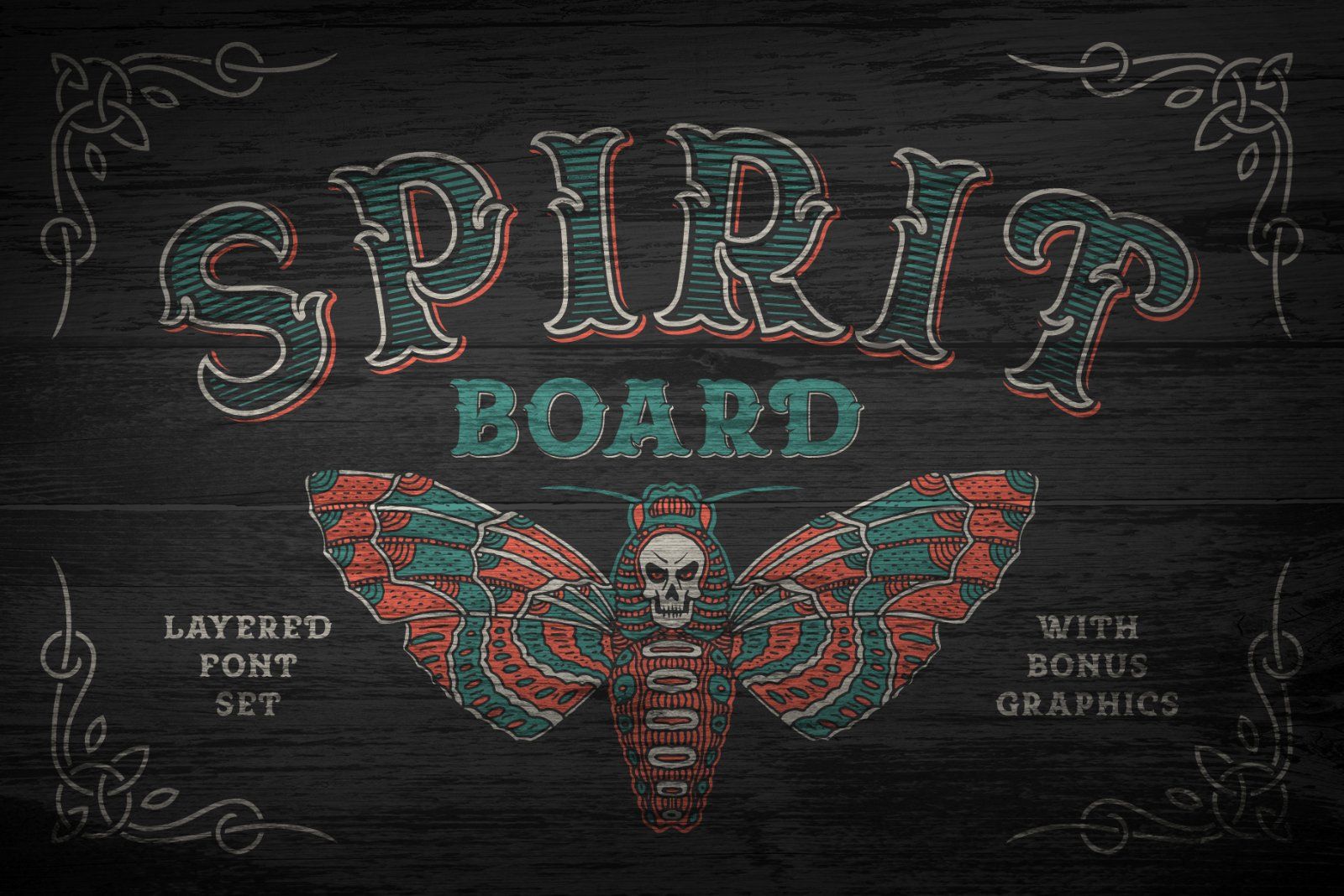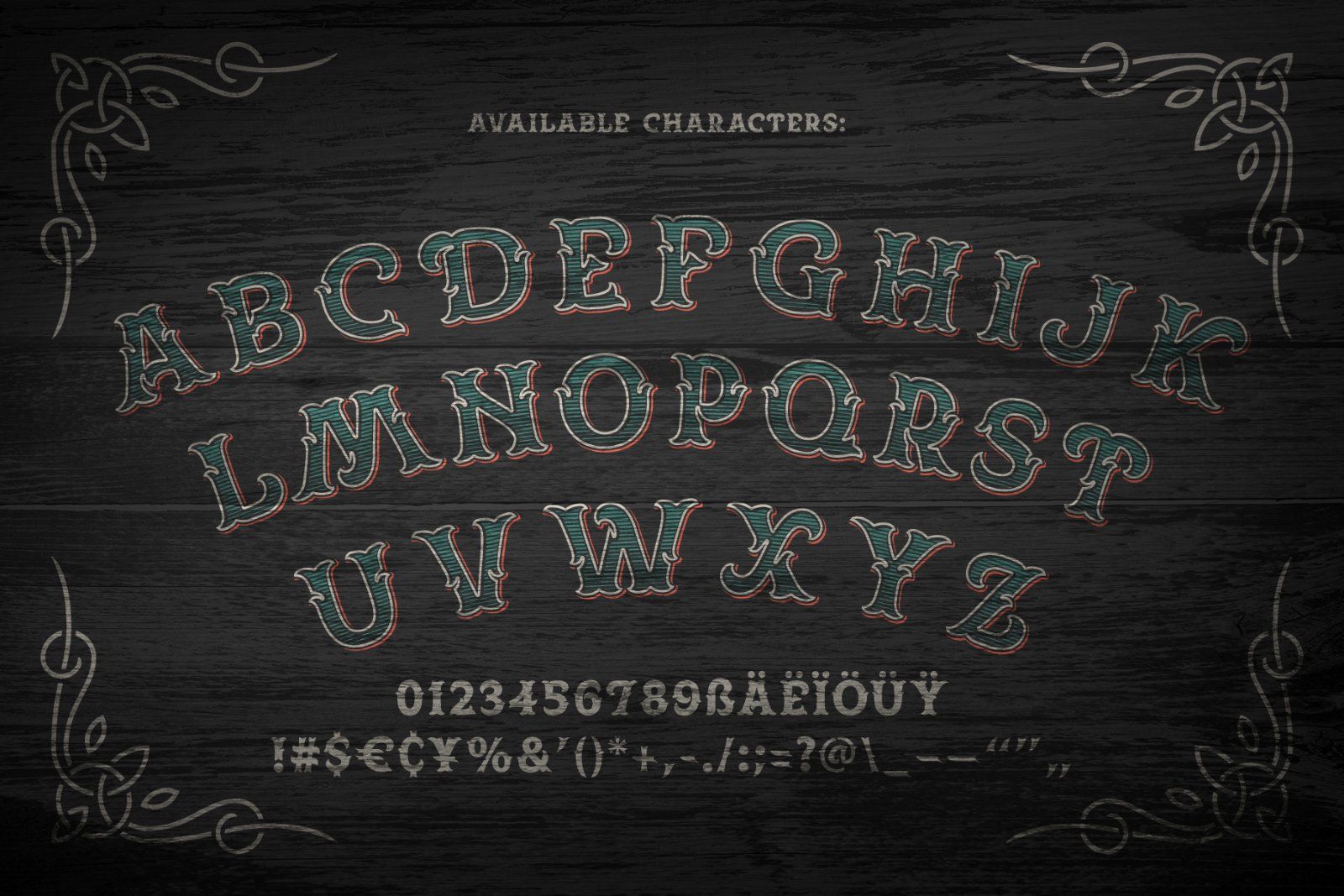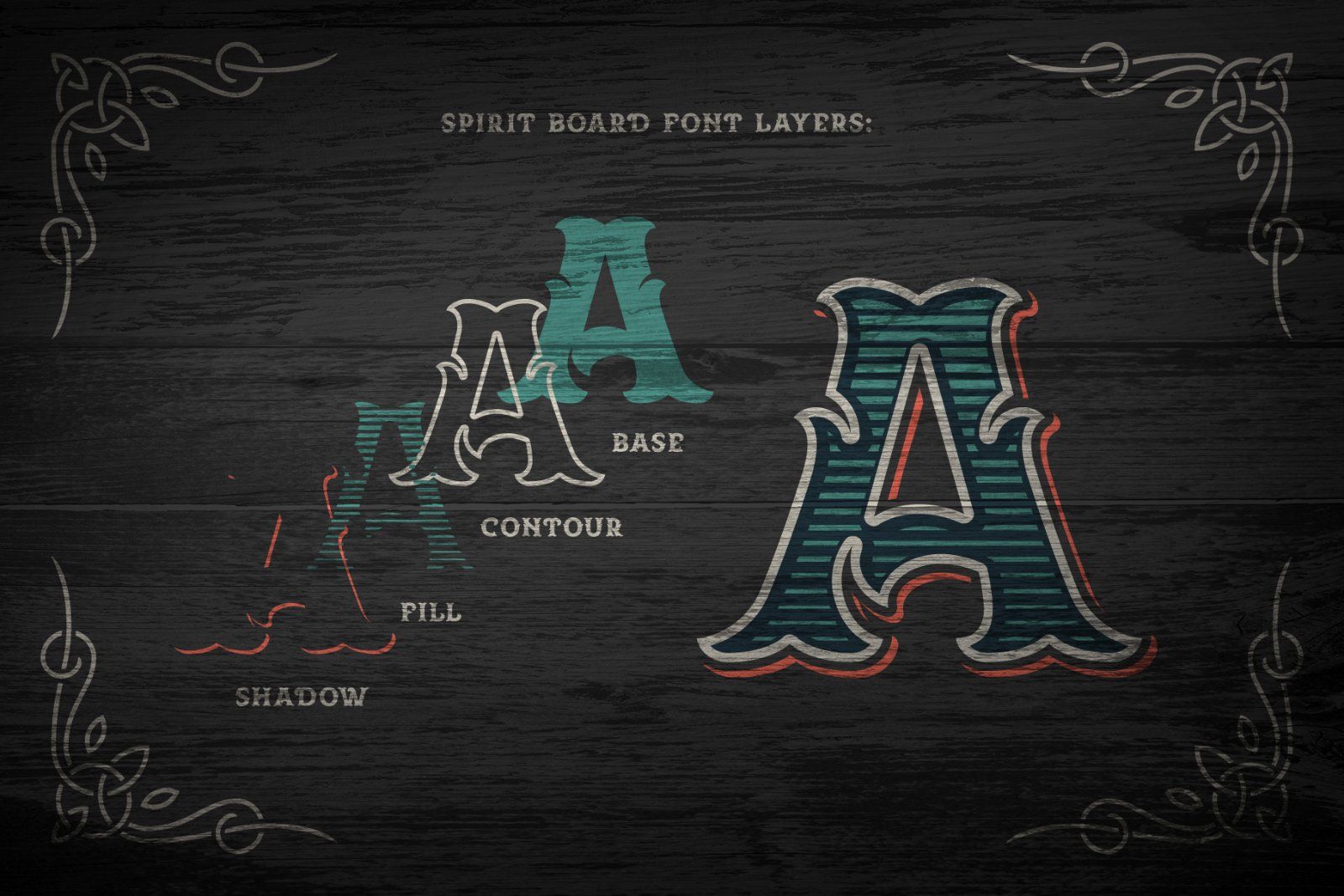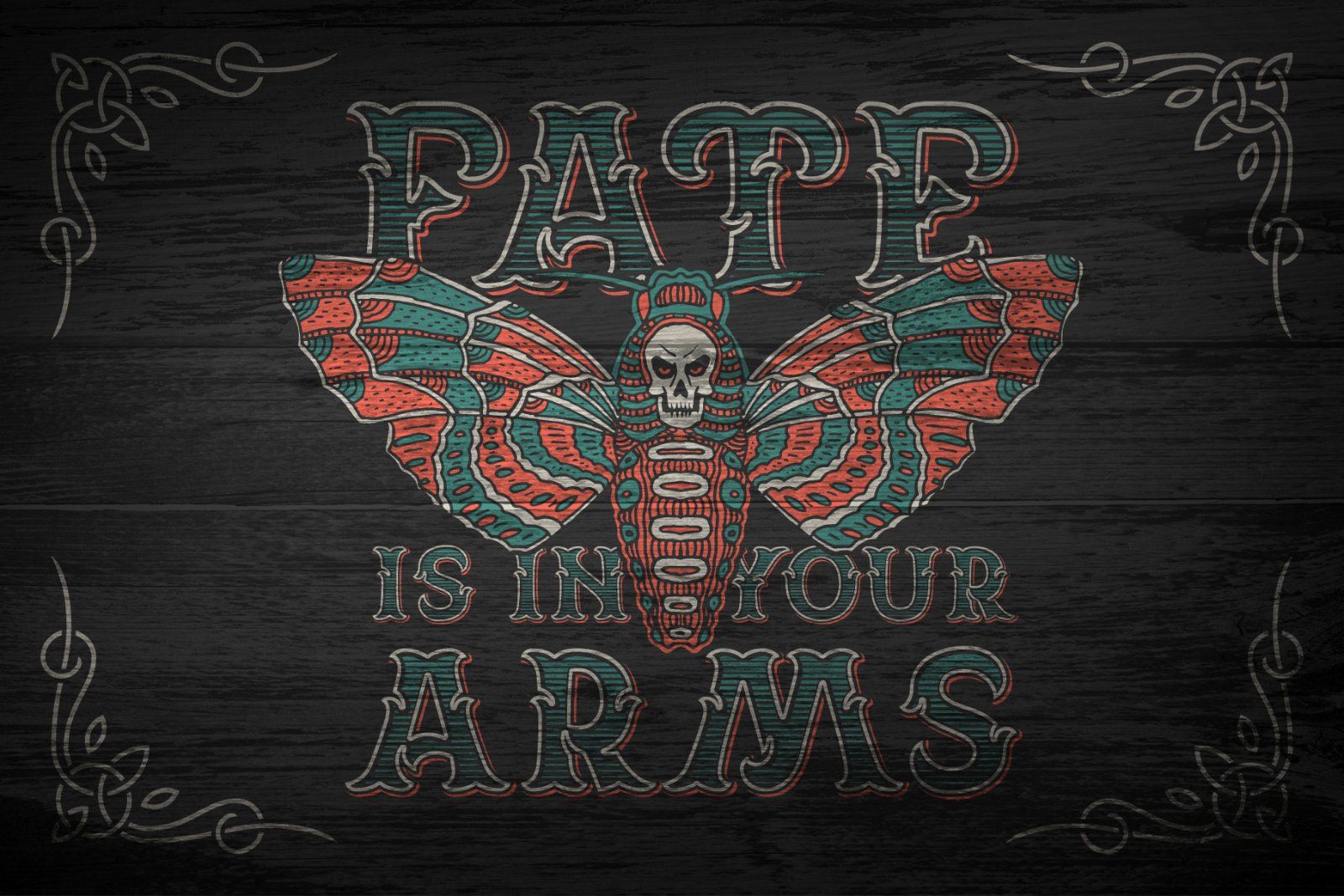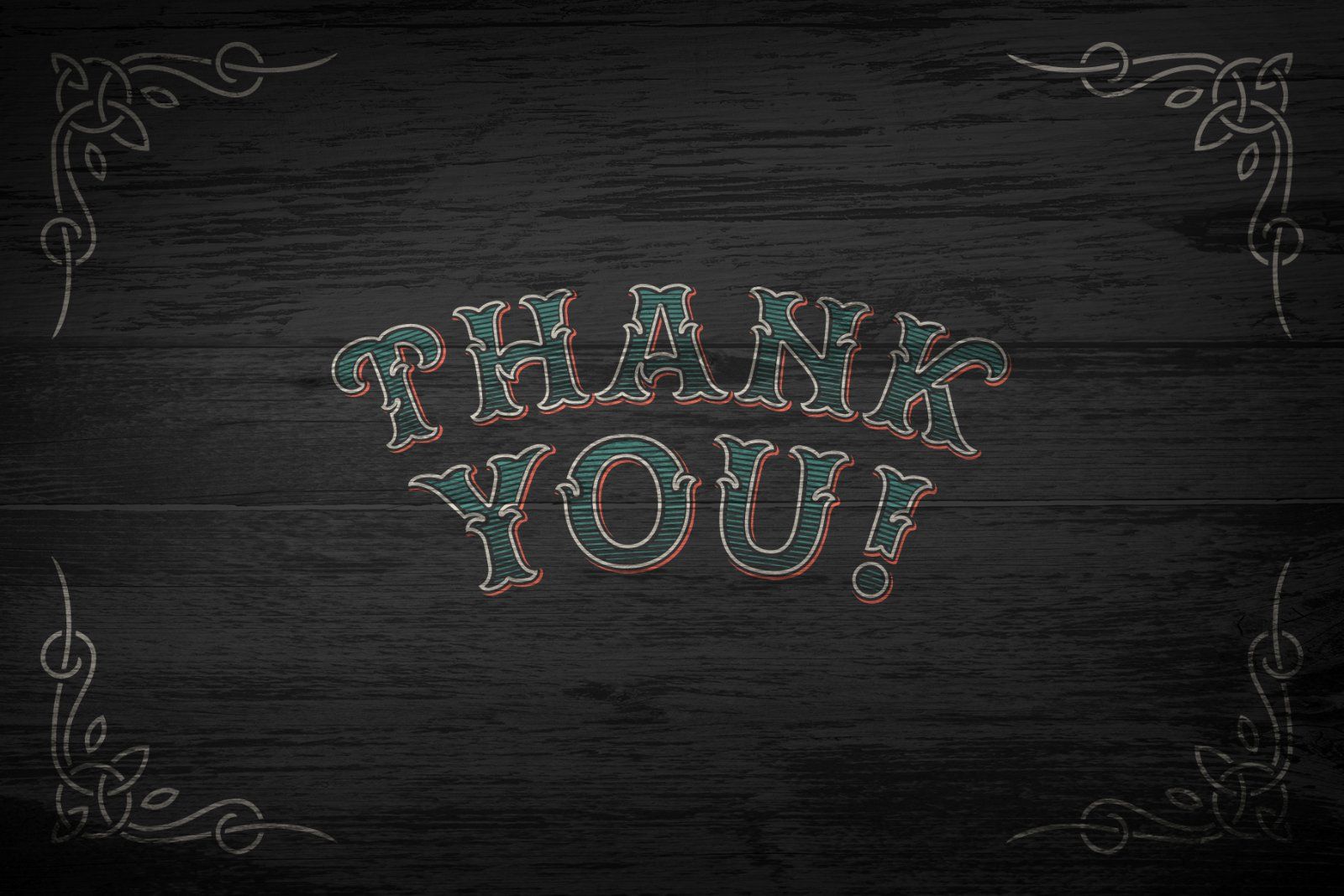
Hi, presenting a vintage "Spirit board" font set. It has decorative old-school look with four font layers (one font file for each layer). Also all graphics from 4th screenshot is included as a bonus, with vector illustration, decorative ornate and editable text.